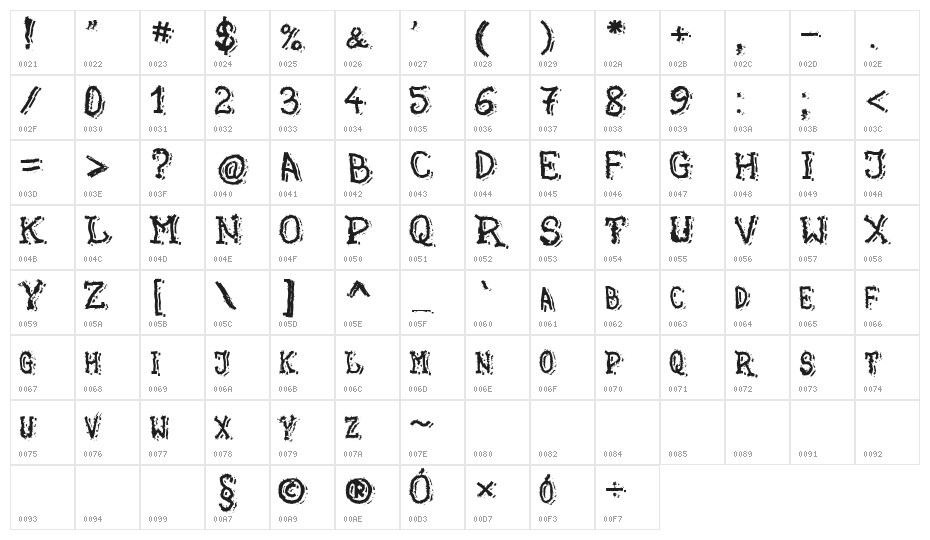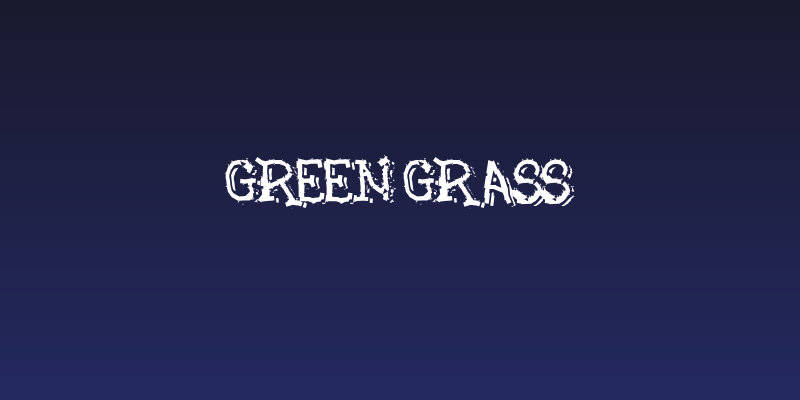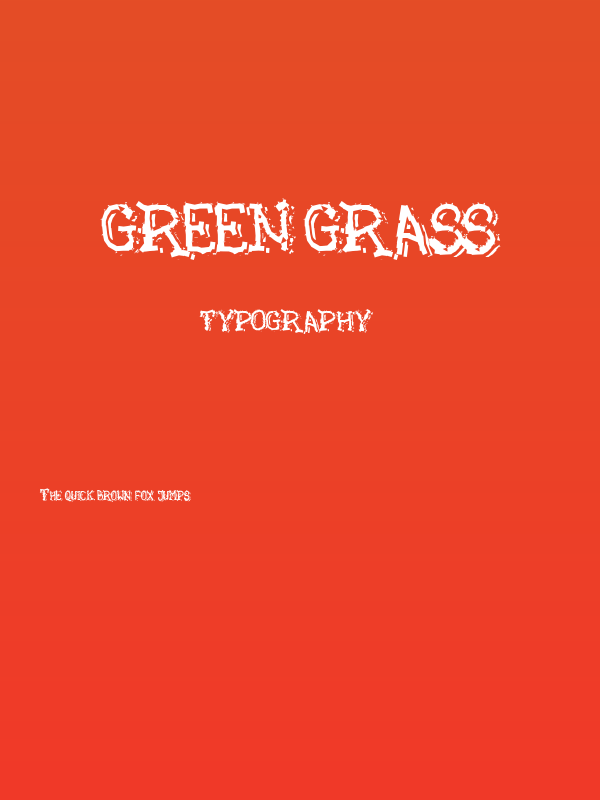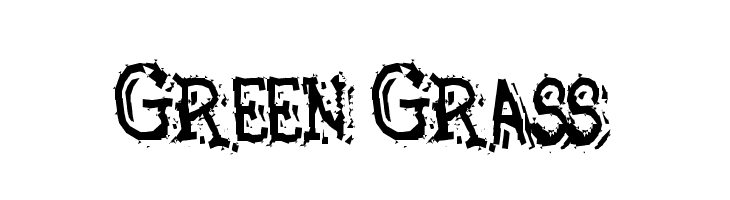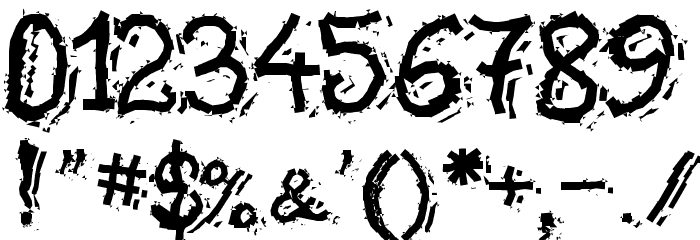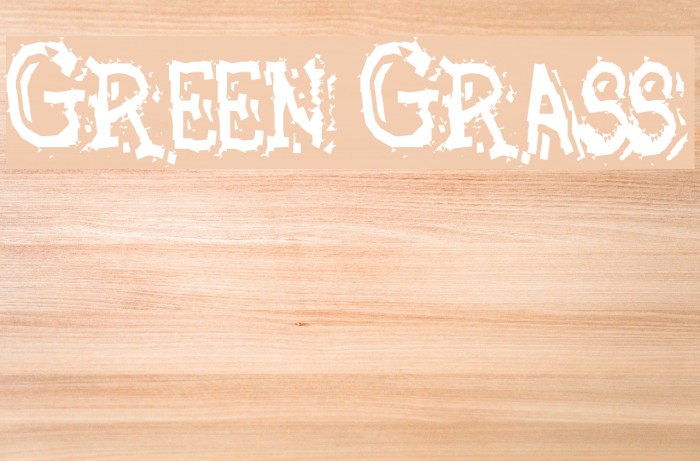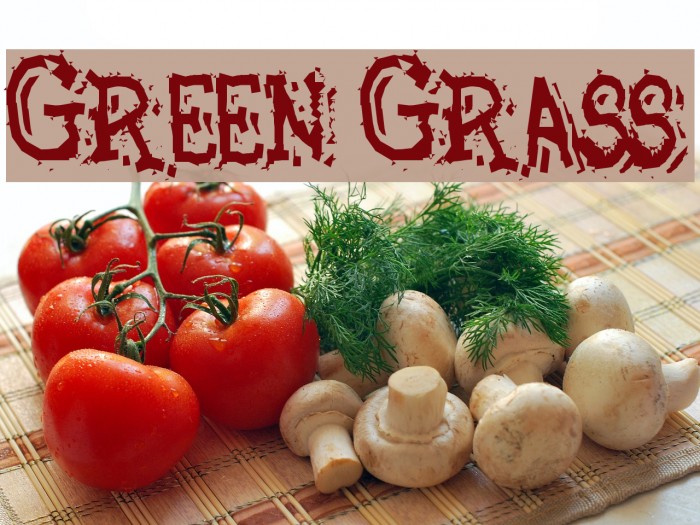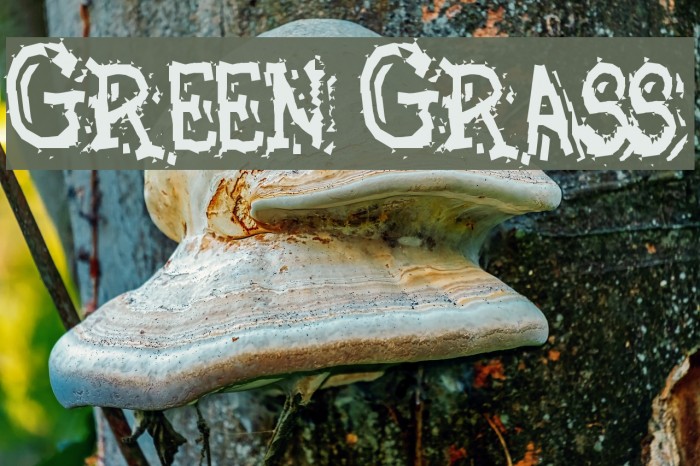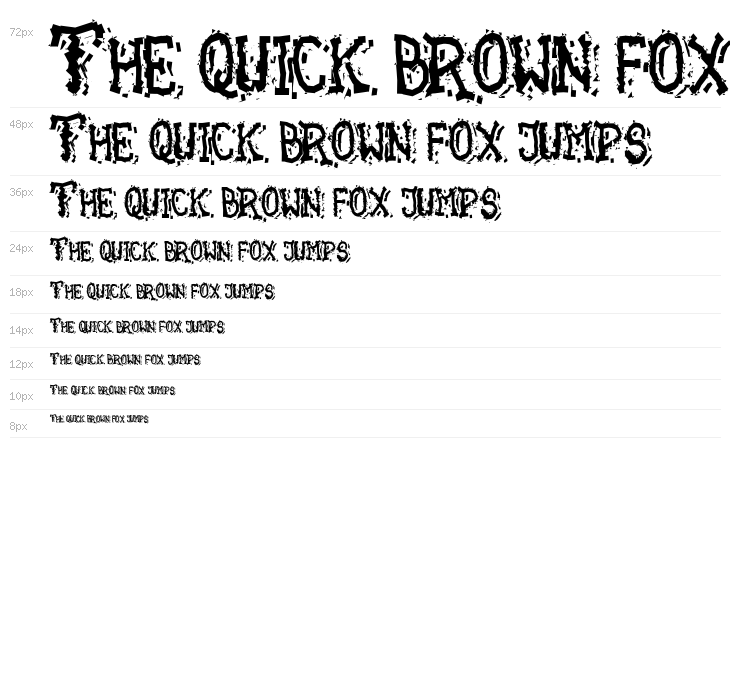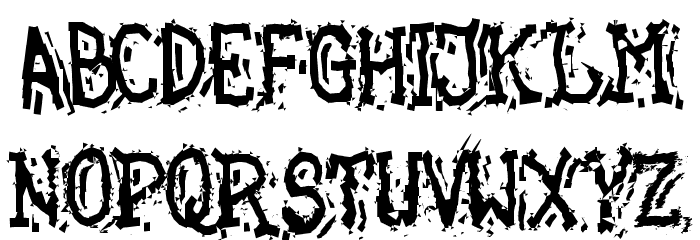
Green Grass Font
Green Grass Description
This font features a rugged, distressed appearance, reminiscent of worn textures or natural elements like grass and foliage. The characters are bold and irregular, with jagged edges and uneven strokes that give it a raw, organic feel. The uppercase and lowercase letters maintain a consistent style, with each character appearing as if it has been eroded or weathered over time. Numbers and special characters follow the same design, ensuring a cohesive look across all elements. This font's unique style makes it stand out, capturing attention with its unconventional and artistic flair.
| Proposed Projects | Ideal for projects that require a natural or grunge aesthetic, such as outdoor event posters, eco-friendly product packaging, or edgy graphic design work. |